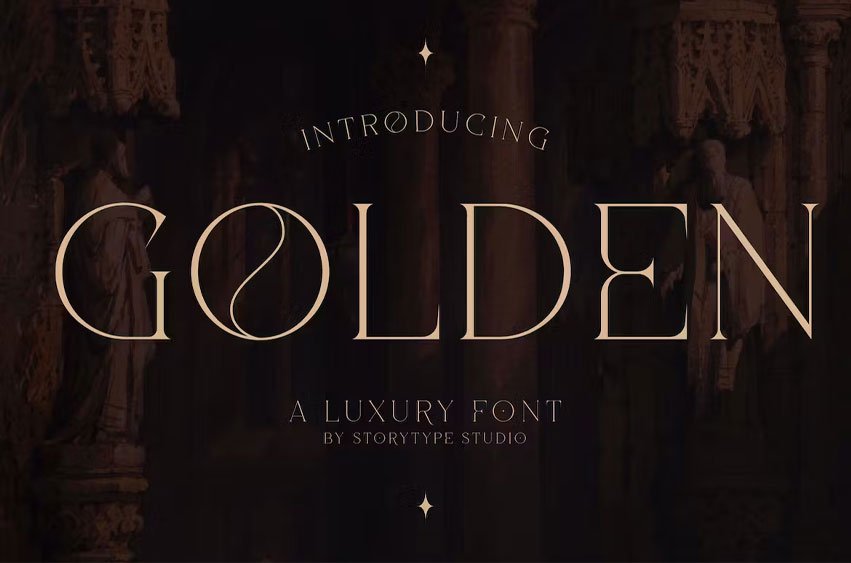
Golden Luxury Font
Golden Luxury Font is suitable to complement your digital and printed creative products. This font is perfect for posters, social media posts, branding, personal projects, etc.